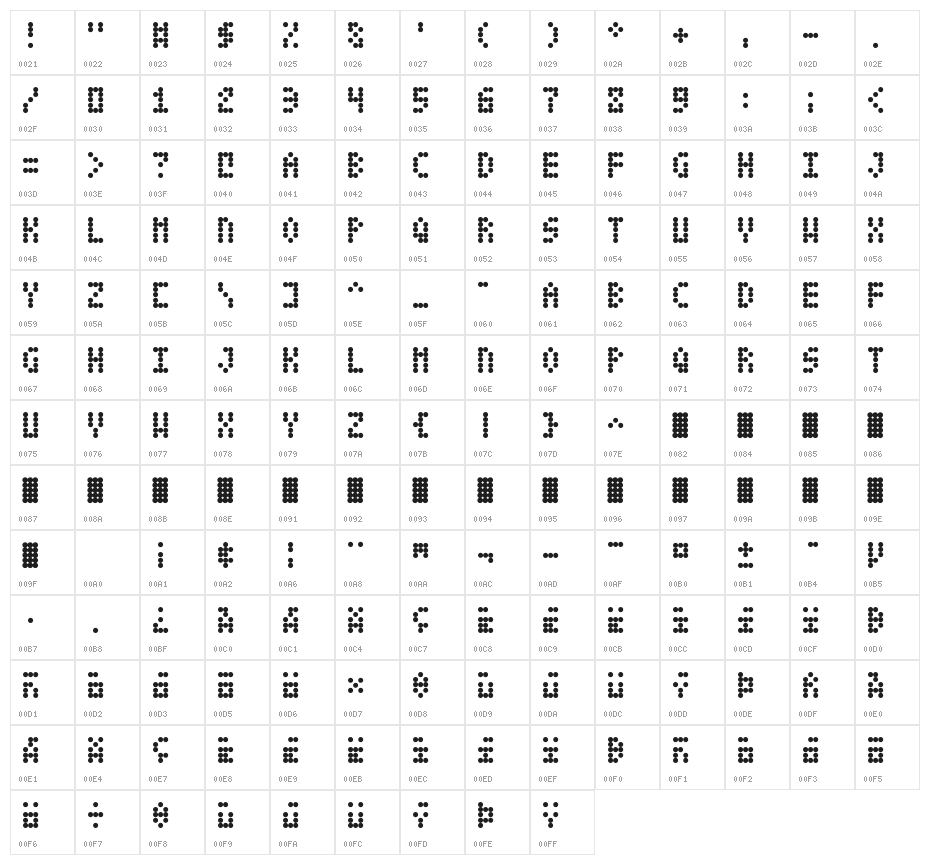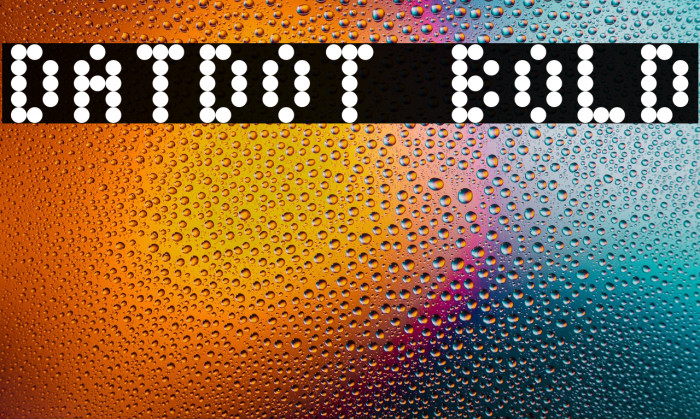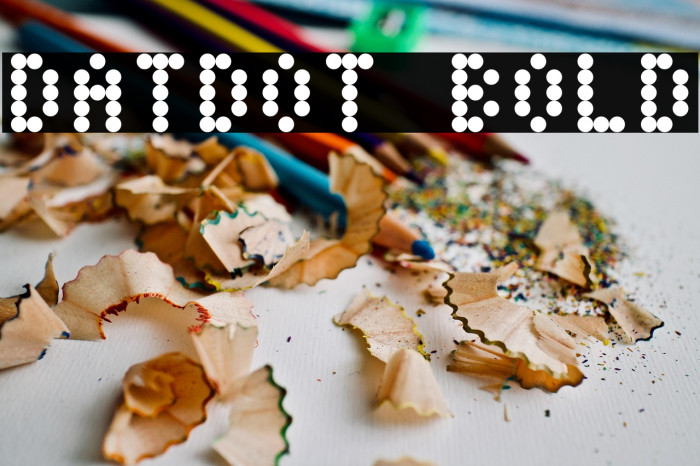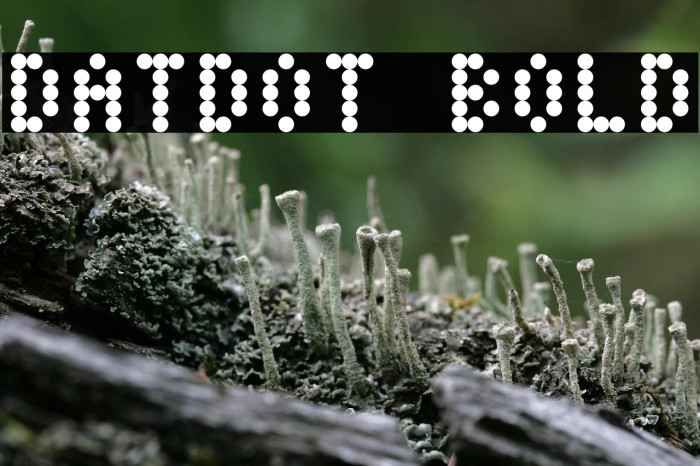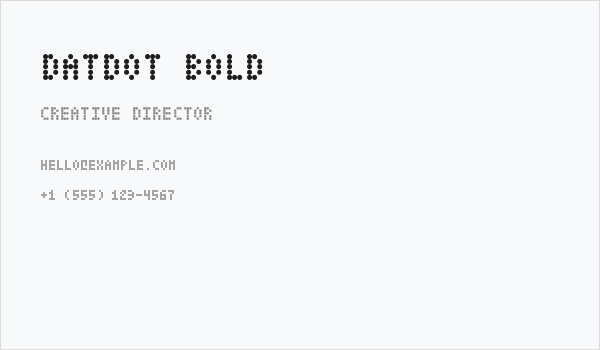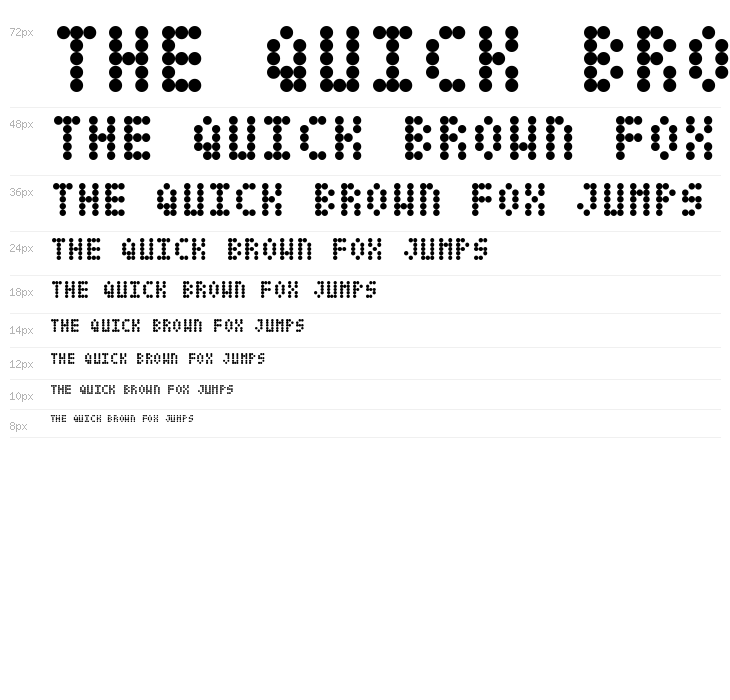
DatDot Bold Font
DatDot Bold Description
This font is a unique and creative design composed entirely of dots forming each character. The letters and numbers are constructed with a grid-like pattern of evenly spaced dots, giving it a digital and modern appearance. The style is bold and eye-catching, making it suitable for attention-grabbing headlines or artistic projects. The uniformity of the dots provides a consistent texture across all characters, while the geometric arrangement ensures readability despite the unconventional design. This font stands out due to its playful yet structured aesthetic, making it ideal for projects that require a blend of creativity and clarity.
| Proposed Projects | Ideal for digital art, tech-themed designs, posters, and creative branding. |